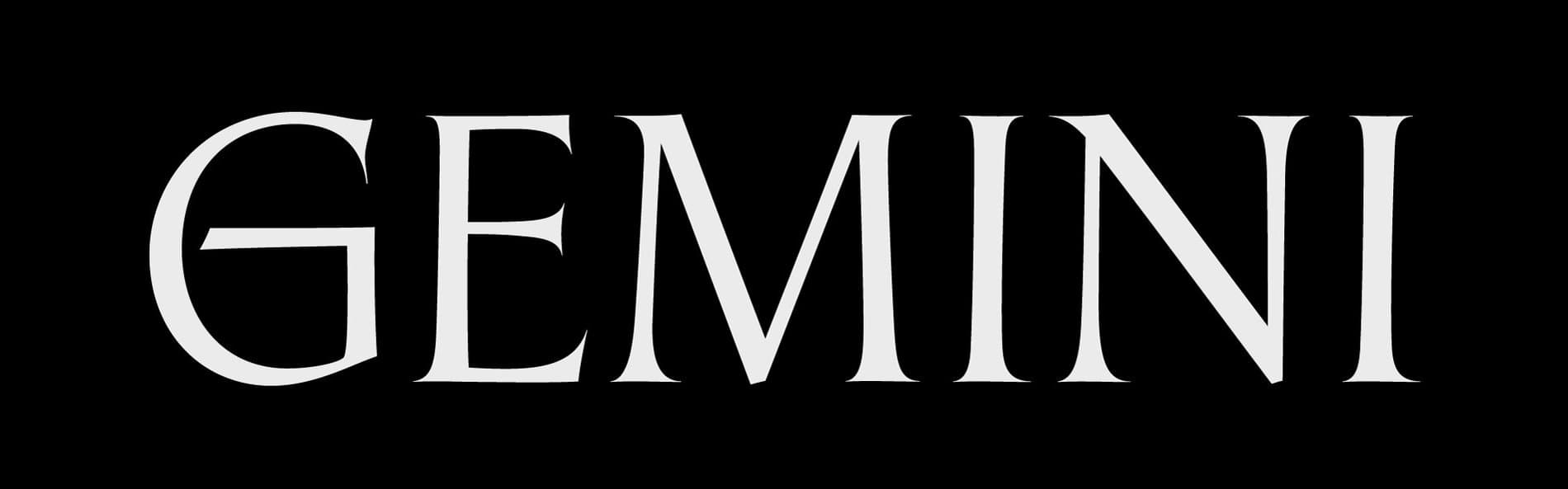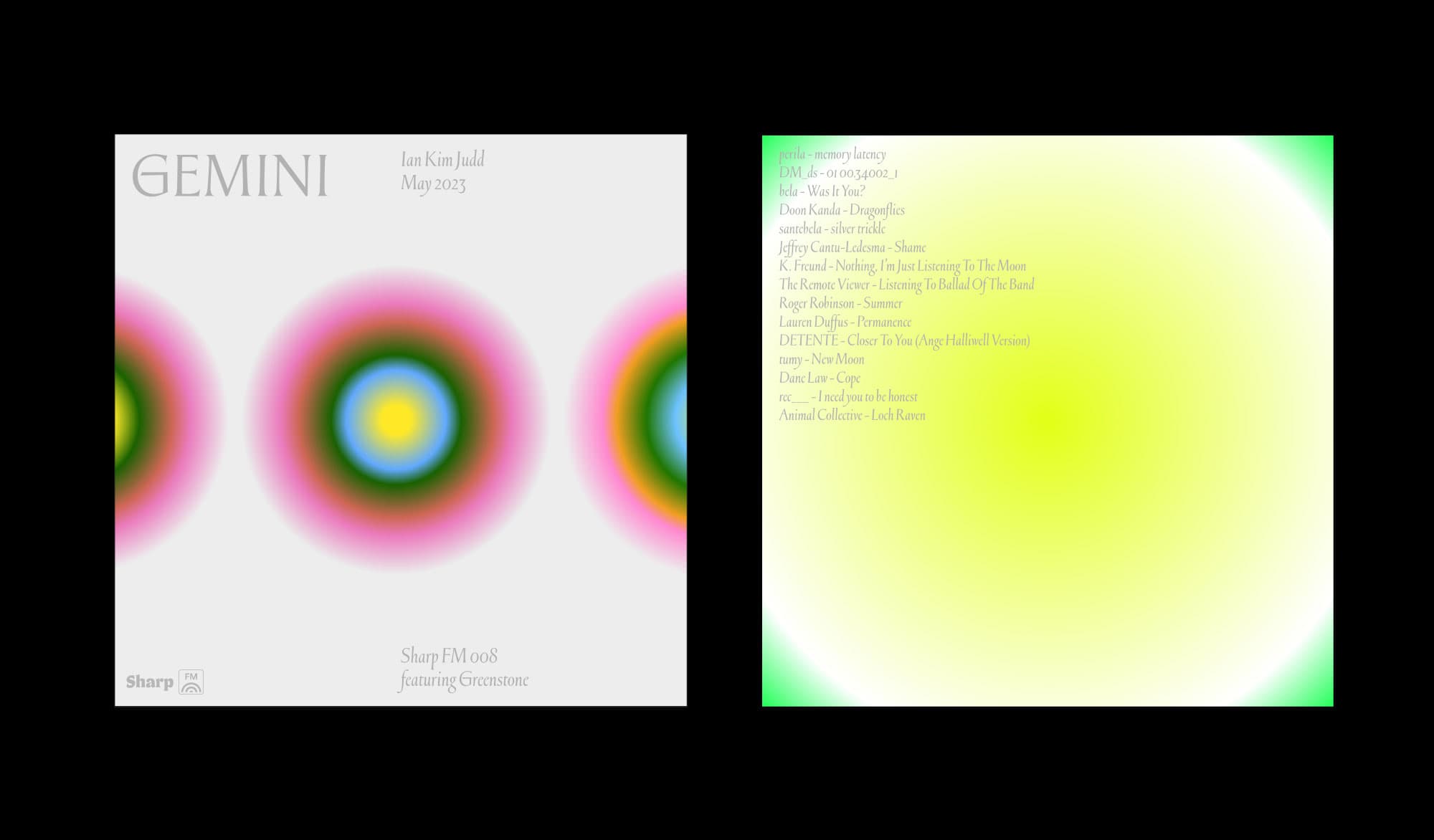
Ian Kim Judd’s long-running NTS show Fifth World is a far-out flight into the world of ambient music, serving as a monthly beacon of genuine optimism and ultimate freshness. We asked him to make the first in a new meditative sub-series for Sharp FM, with a cover and tracklist designed by the inimitable artist LaurelSchwulst which highlight’s Connor Davenport’s Greenstone.
"This is a collection of early morning, mid day, late night room-filling music with you, the listener, in mind," says Ian. "It was inspired by a sunset and sunrise that I caught within the same day."
The soft golden light of this mix is given synesthetic sight by Laurel's "Energy Spheres," a forthcoming visualizer that encourages the user to reflect on the energy latent within and around you by making radial gradient portraits. "The process of creating the spheres is very meditative," says Laurel. "I've been using them to create avatars/memorable contact images for my friends. I tried making them while listening to Ian's mix, and it felt very good."
Laurel honed in on Greenstone as the main font for this project. Connor's typeface, a digital homage to Ogg's vernacular lettering through the lens of American and British stone carving, is fundamentally about communication. The connection between these sources recalls the intercultural dialogue between the American and British type design studios during the late 19th through early 20th centuries. It’s an unexpected, yet perfect expression of Gemini energy. Greenstone's large, flaring capitals and delicate, expansive serifs suggest the sharp cuts of engraved letterforms, which are beautifully contrasted by Laurel's soft spherical gradients.
Sharp FM 009 closes with "Loch Raven," arriving as both a surprise and a natural conclusion. It's a song that makes us nostalgic for the 2000's -- so much pop culture is doing that these days -- and in this context, it also sounds renewed. It's fun to imagine how this song might hit for our listeners, whether this is the first time you're hearing Animal Collective or whether you're hearing them again for the first time after almost two decades. May is the six-month mark of the year, and this seems like an apt moment for circuitous, curious contemplation (with a new song) or conversation (with a past self).
With its trebly sine wave and vocal interplay, this downtempo gem completes a loop. If all mixes are love letters, what font is this one being typed with? What does the handwriting look like? Ian's choice for "last song" perfectly encapsulates the buzzing, playful qualities of this Gemini season, and whether your response is to make a mix of your own, or to simply let the mix play again and restart the circle, we hope its ambient qualities give meditative space. Many hands and many voices went into producing this hour of music, and the hope is that the closing airborne minutes of "Loch Raven", with its chiming drone and ''ooh ooh' refrain in soft dialogue, inspire other forms of creative murmuration.
This Korean proverb speaks to communion, materiality, and team work. We've adapted this quote from a forthcoming hour-long video made by Laurel, which uses Ian's mix as the soundtrack. There's much to be gained in translation here, and we've paired Carta Nueva and Sharp Grotesk Hangul to visualize this dialogue. Thank you to Chino Kim for the translation.